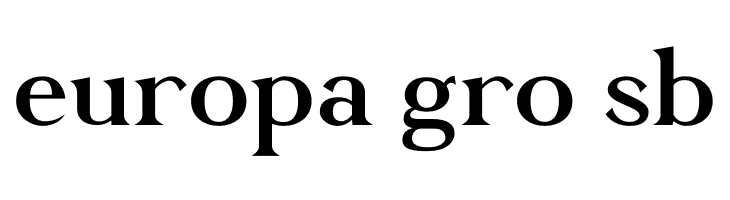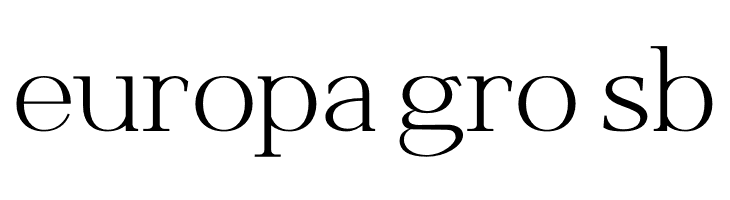
A classic serif font with high contrast and sharp serifs, exuding elegance and sophistication.
A classic serif font with elegant, refined characters and thin serifs.
A high-contrast serif font with elegant, classic styling and modern flair.